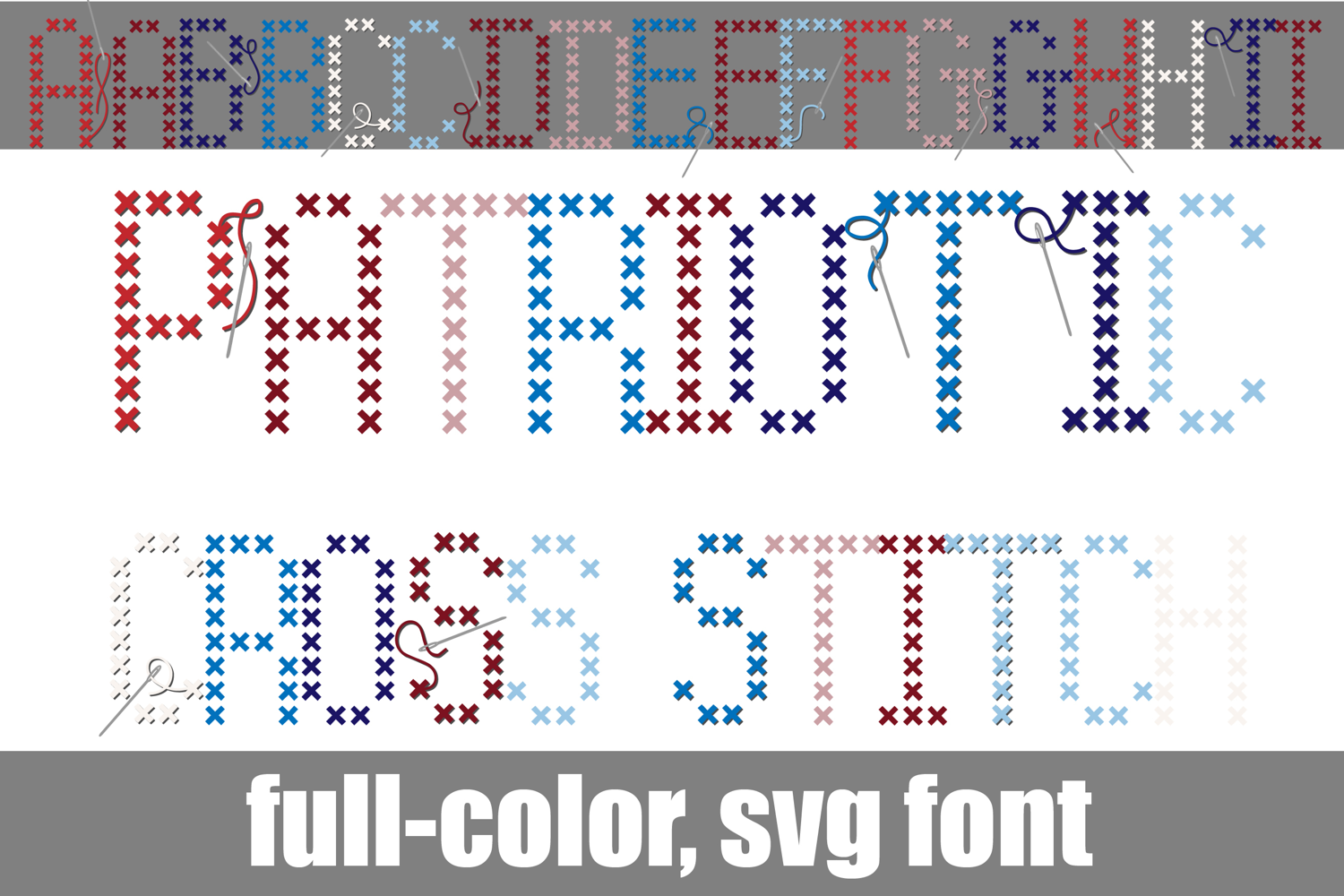
Patriotic Cross Stitch Color Font
This full-color, cross stitch style font is in a patriotic color palette. There is an alt case of additional colors of each letter that you can access through your system's character map.